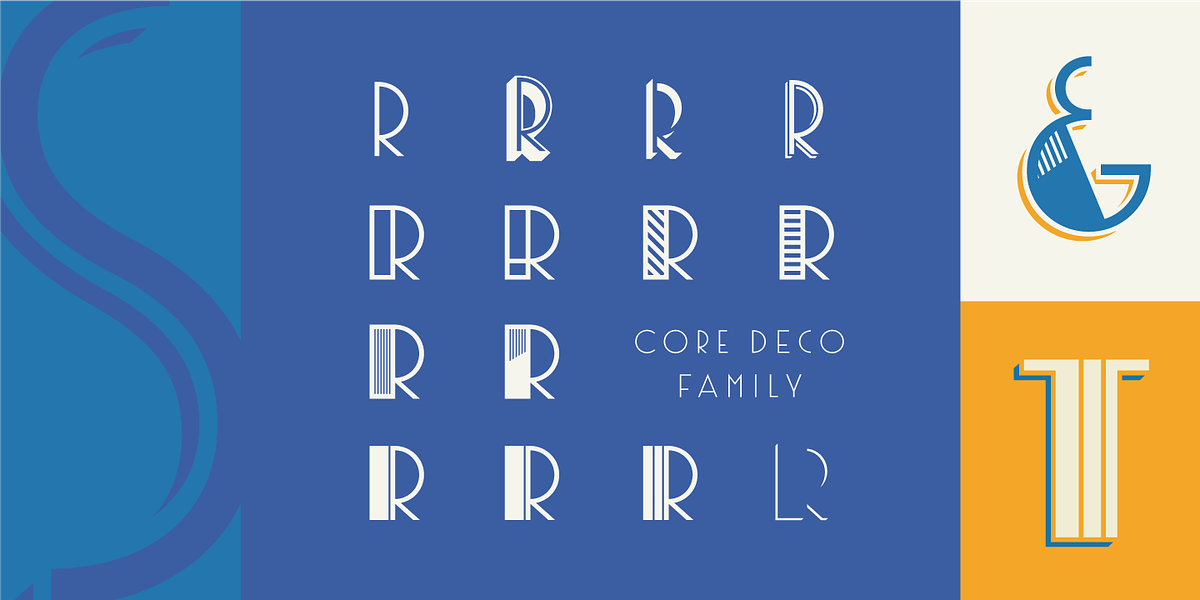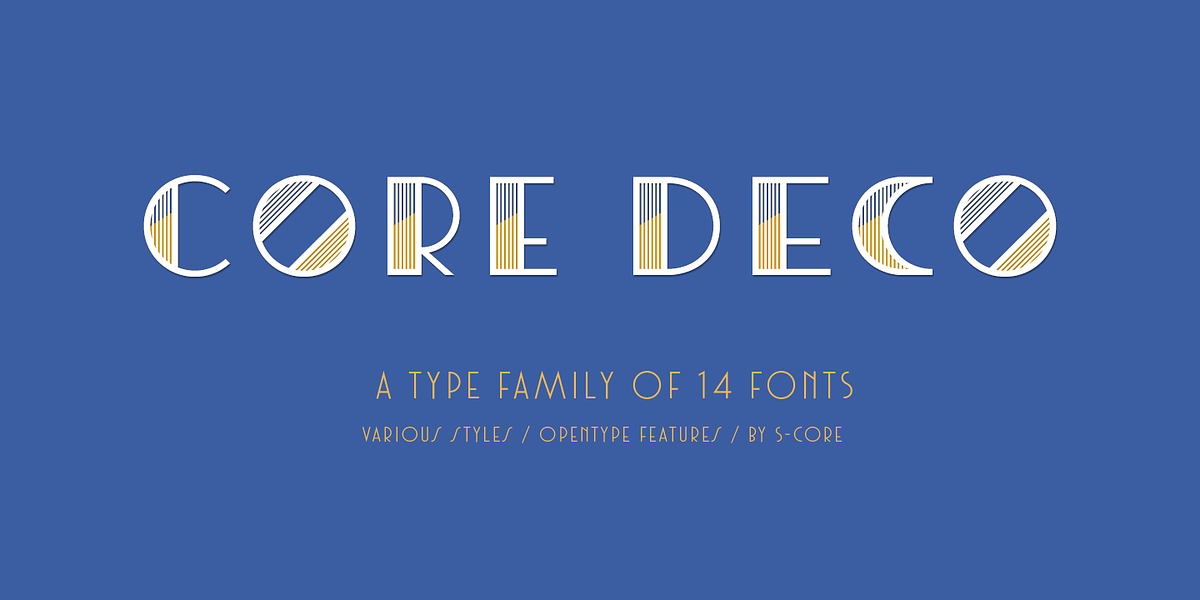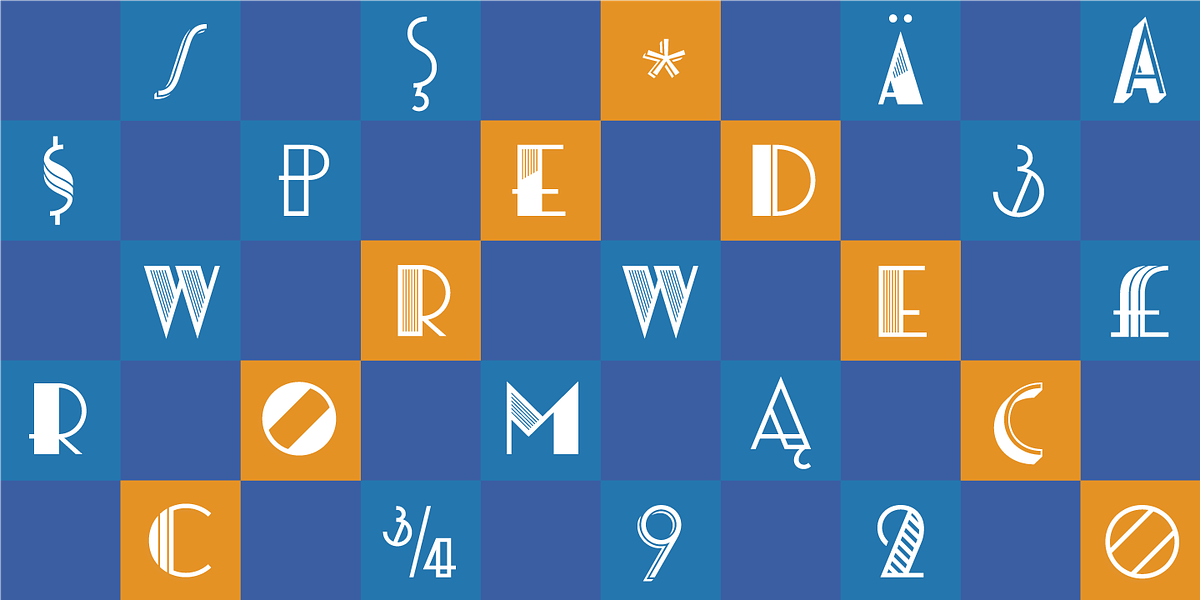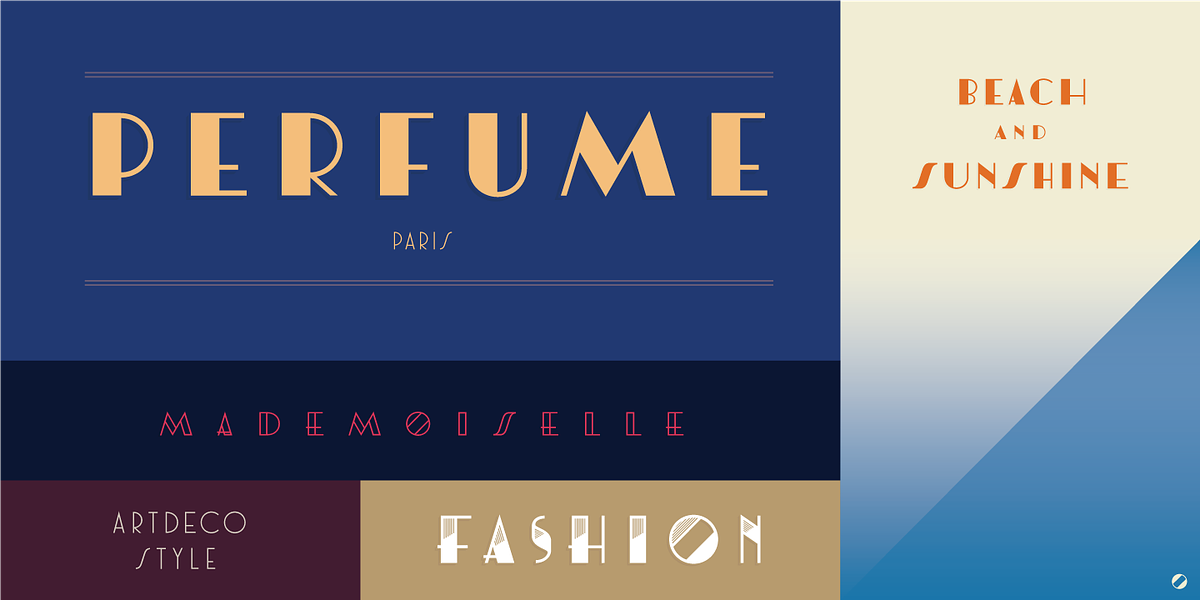
Core Deco
The Core Deco font family is a set of geometric sans-serif fonts inspired by Art Deco posters from the late 1930s to 1950s. The family offers two main styles: a thin and elegant style and a style with strong contrast. Each style includes alternative shapes like 3D structures, patterns, and outlines. The fonts come in narrow and wide widths and are designed to work well together despite their stylistic variations. The family supports complete Latin 1252, Central European 1250, and Turkish 1254 character sets.